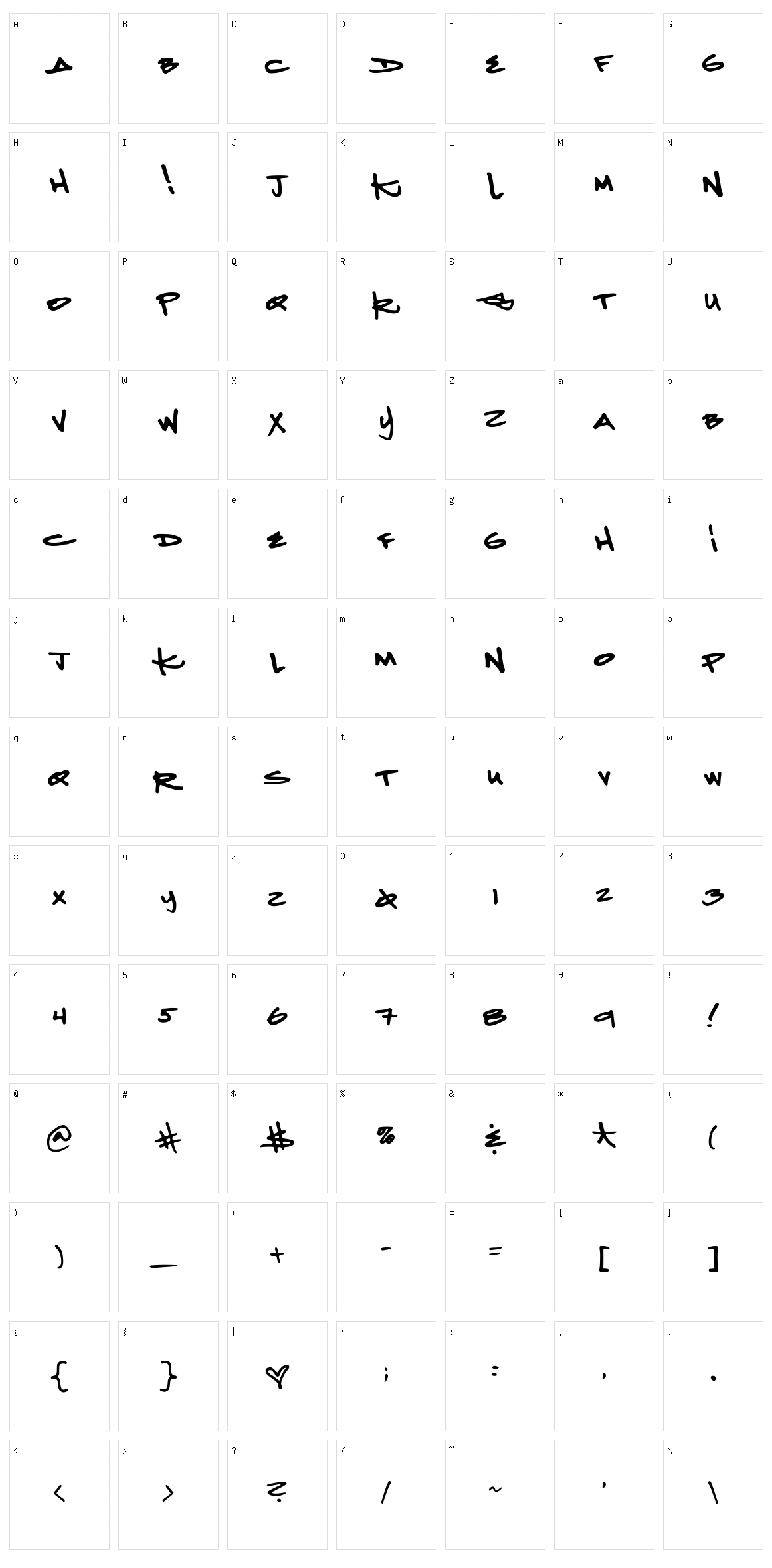
The free font Ketamine Nightmares is carefully designed by Greenlaces, showcasing a thoughtful balance of creativity and usability and falls under the Script font style. When you download the ZIP file, it contains only 24.81 KB of font files, making it lightweight and quick to download. Please review the license details below to understand permitted usage and distribution rights. If license information is not available, we recommend using this font for personal projects only or contacting the author directly for commercial usage permissions.